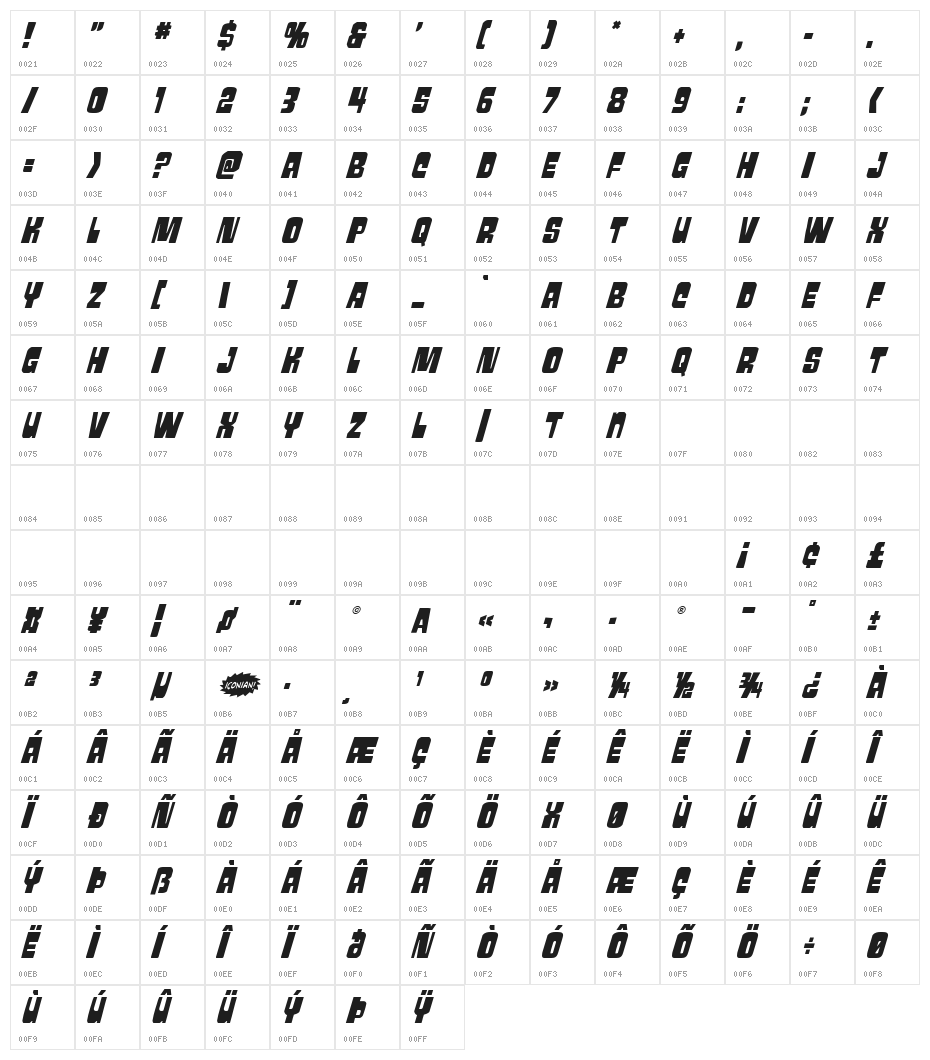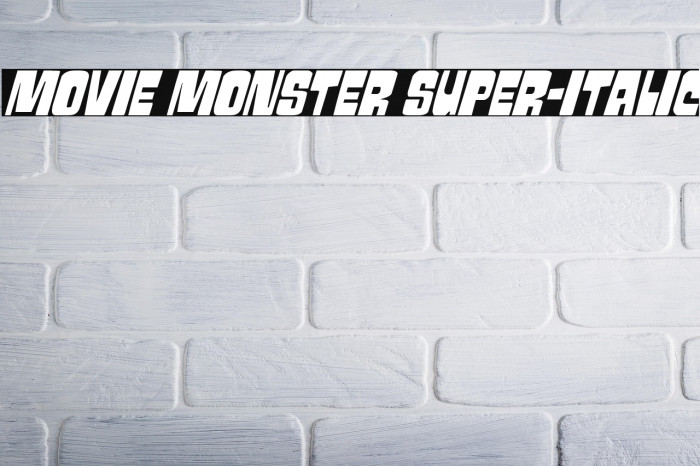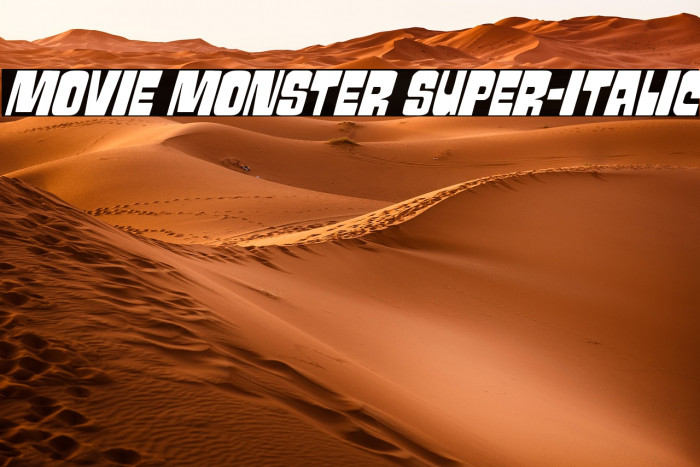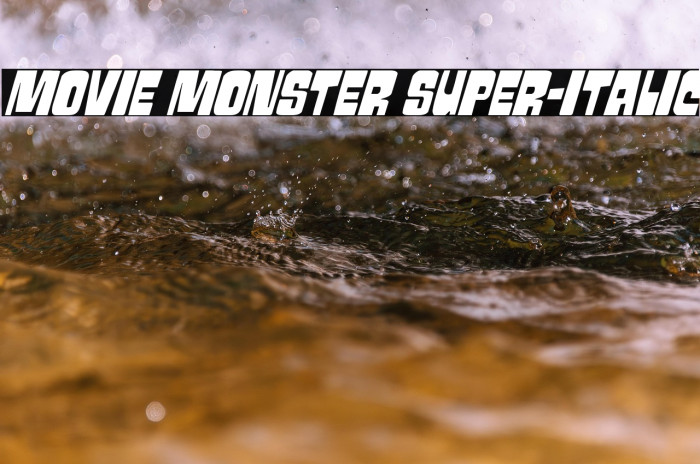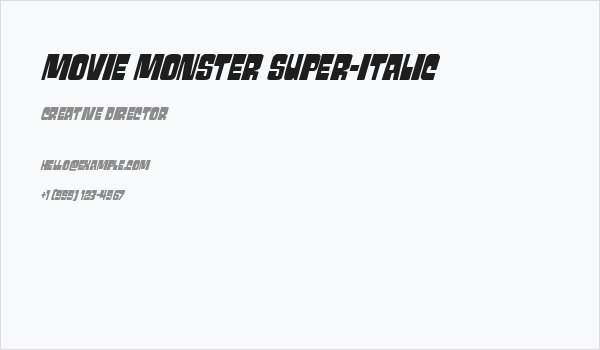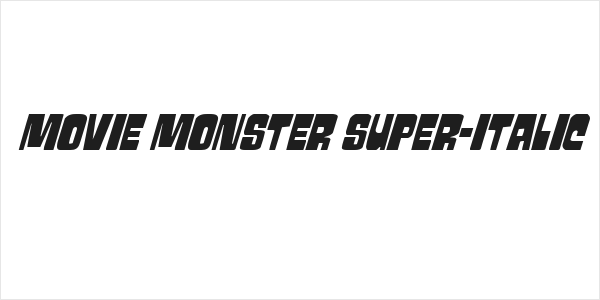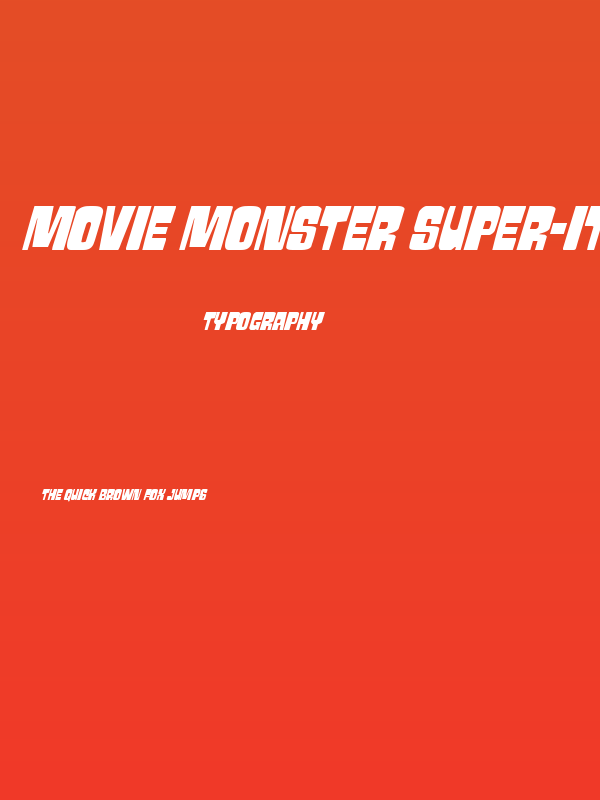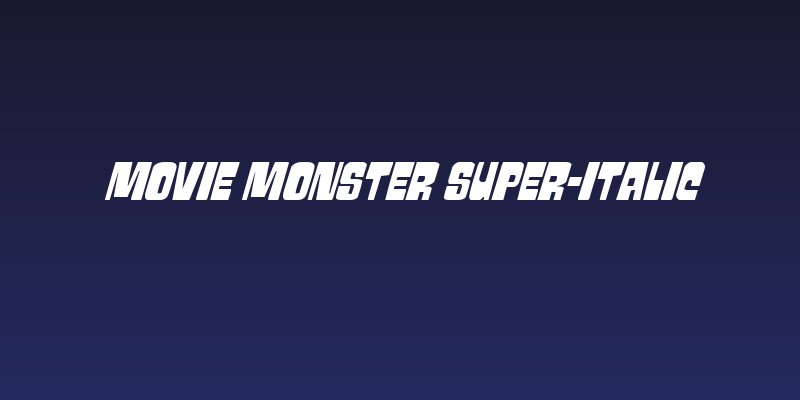
Movie Monster Super-Italic Font
Movie Monster Super-Italic Description
This font features a bold and dynamic style with a strong italic slant, giving it a sense of movement and urgency. The characters are wide and blocky, with sharp angles and a heavy weight that commands attention. The uppercase and lowercase letters maintain a consistent style, with the lowercase mirroring the uppercase in form and structure. Numbers and special characters are equally bold, ensuring uniformity across all text elements. The font's design is reminiscent of action-packed themes, making it ideal for projects that require a dramatic and impactful visual presence.
| Proposed Projects | Ideal for movie posters, video game covers, action-themed branding, and promotional materials that require a bold statement. |